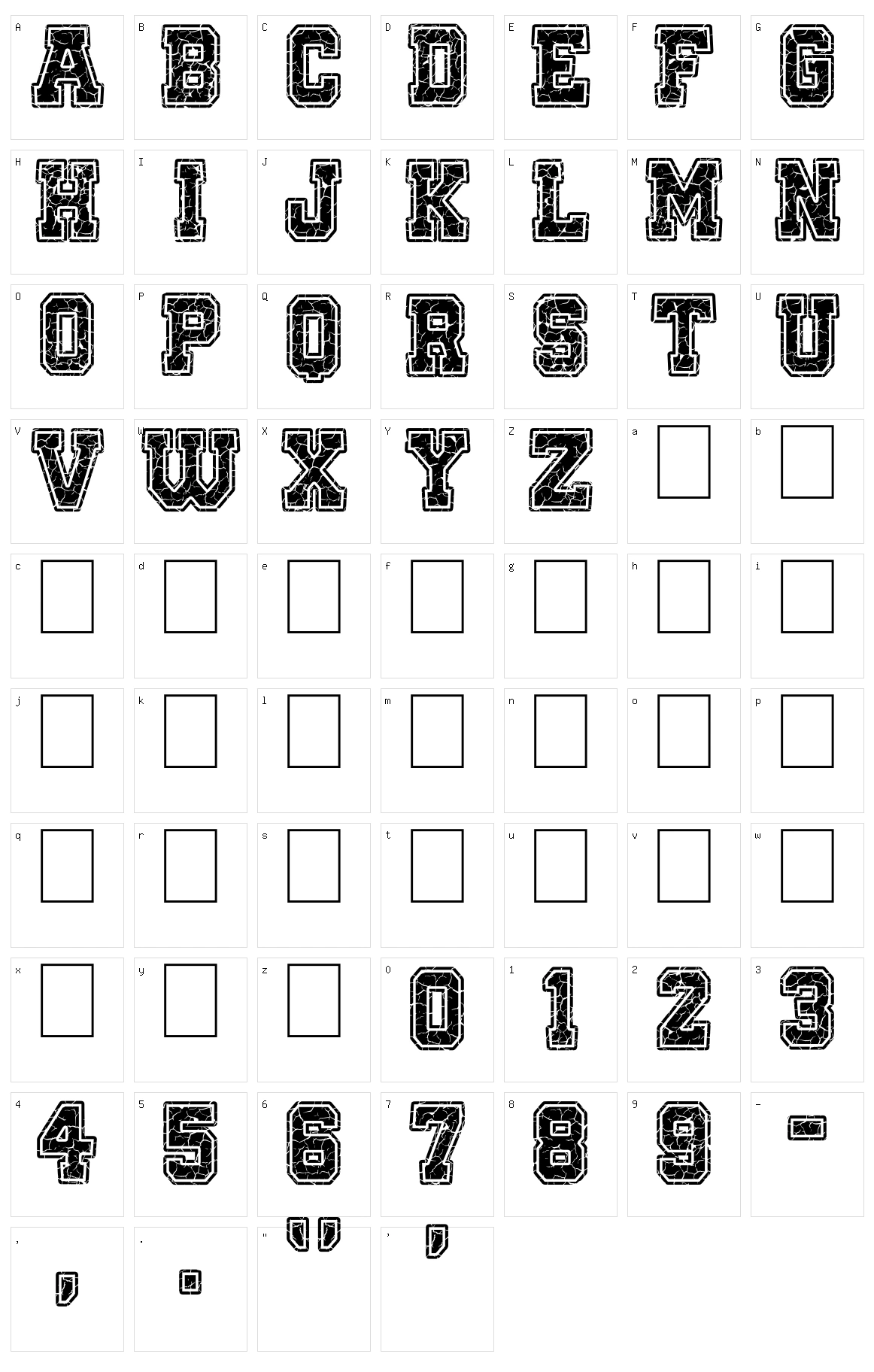
The free font Only The Strong is carefully designed by imagex, showcasing a thoughtful balance of creativity and usability and falls under the Old School font style. When you download the ZIP file, it contains only 92.63 KB of font files, making it lightweight and quick to download. Please review the license details below to understand permitted usage and distribution rights. If license information is not available, we recommend using this font for personal projects only or contacting the author directly for commercial usage permissions.